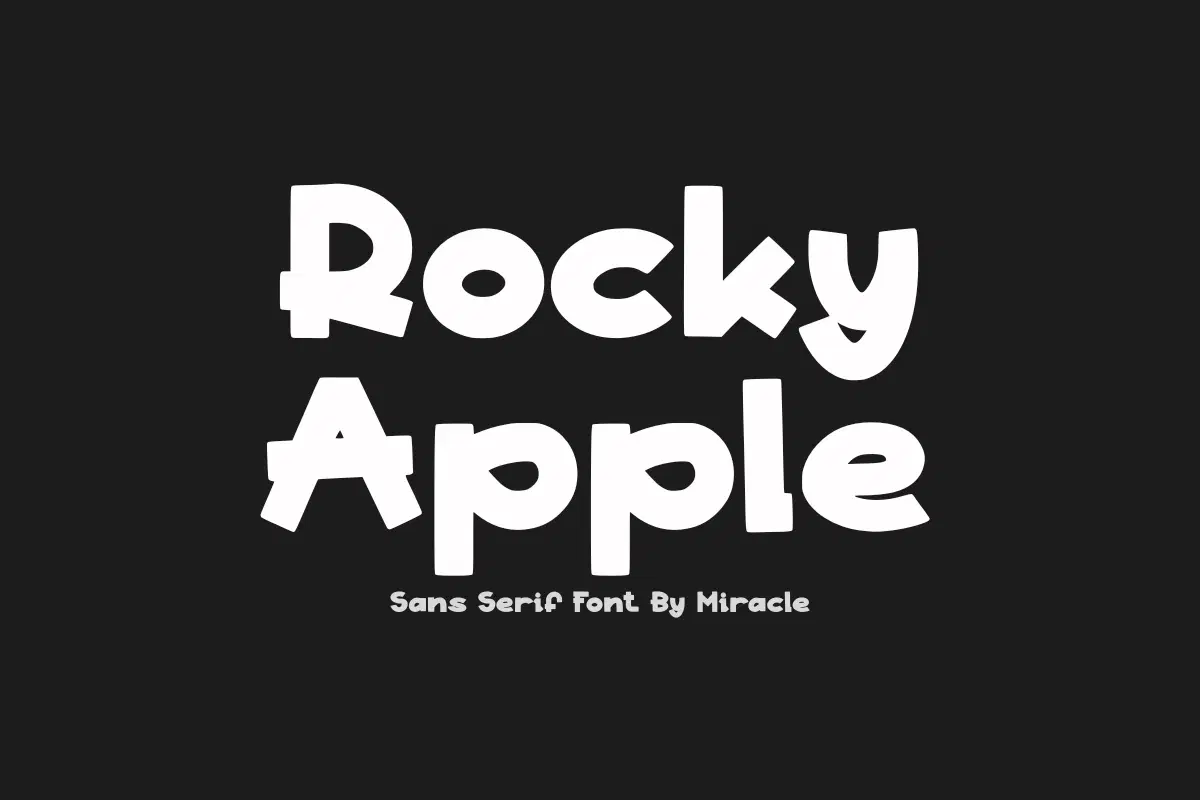
Make a solid impression with Rocky Apple, a powerful and playful sans serif font by Miracle. Featuring thick, heavy letterforms with distinctive "rocky" edges and a hand-drawn feel, this font is designed to bring a bold, energetic personality to your creative designs. It is the perfect choice for projects that need to be loud, fun, and impossible to ignore.
Rocky Apple is crafted for high-impact display use. Its chunky structure and organic shapes provide excellent legibility while adding a unique, artisanal touch that stands out against minimalist or dark backgrounds.